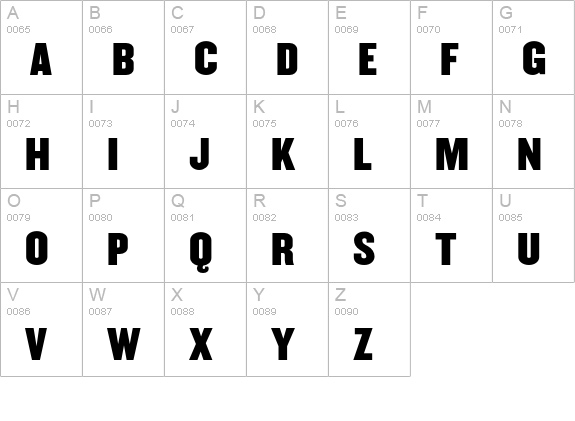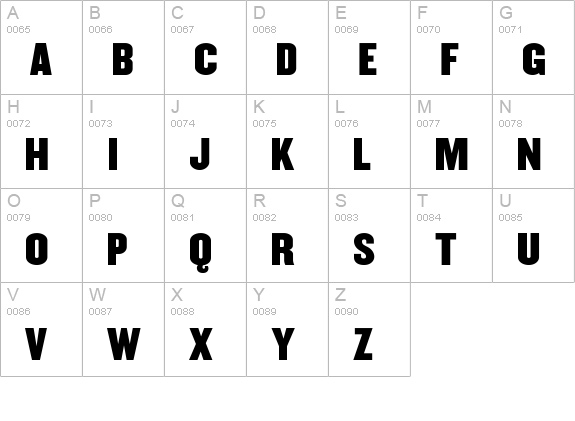
Champion-HTF-Middleweight is a versatile and modern font that combines elegance with a touch of sophistication. Its clean lines and balanced proportions make it perfect for a wide range of design projects, from branding to editorial design. With its medium weight, Champion-HTF-Middleweight strikes the perfect balance between boldness and readability, making it ideal for use in both print and digital media. This font exudes a sense of confidence and professionalism, making it a popular choice among designers and creatives looking to make a statement. Its timeless appeal ensures that it will remain a staple in your font collection for years to come. Best of all, Champion-HTF-Middleweight is available for free download at FontsMarket.com. This means you can easily access this high-quality font without breaking the bank. So why wait? Elevate your designs today with Champion-HTF-Middleweight and experience the power of premium typography at your fingertips.